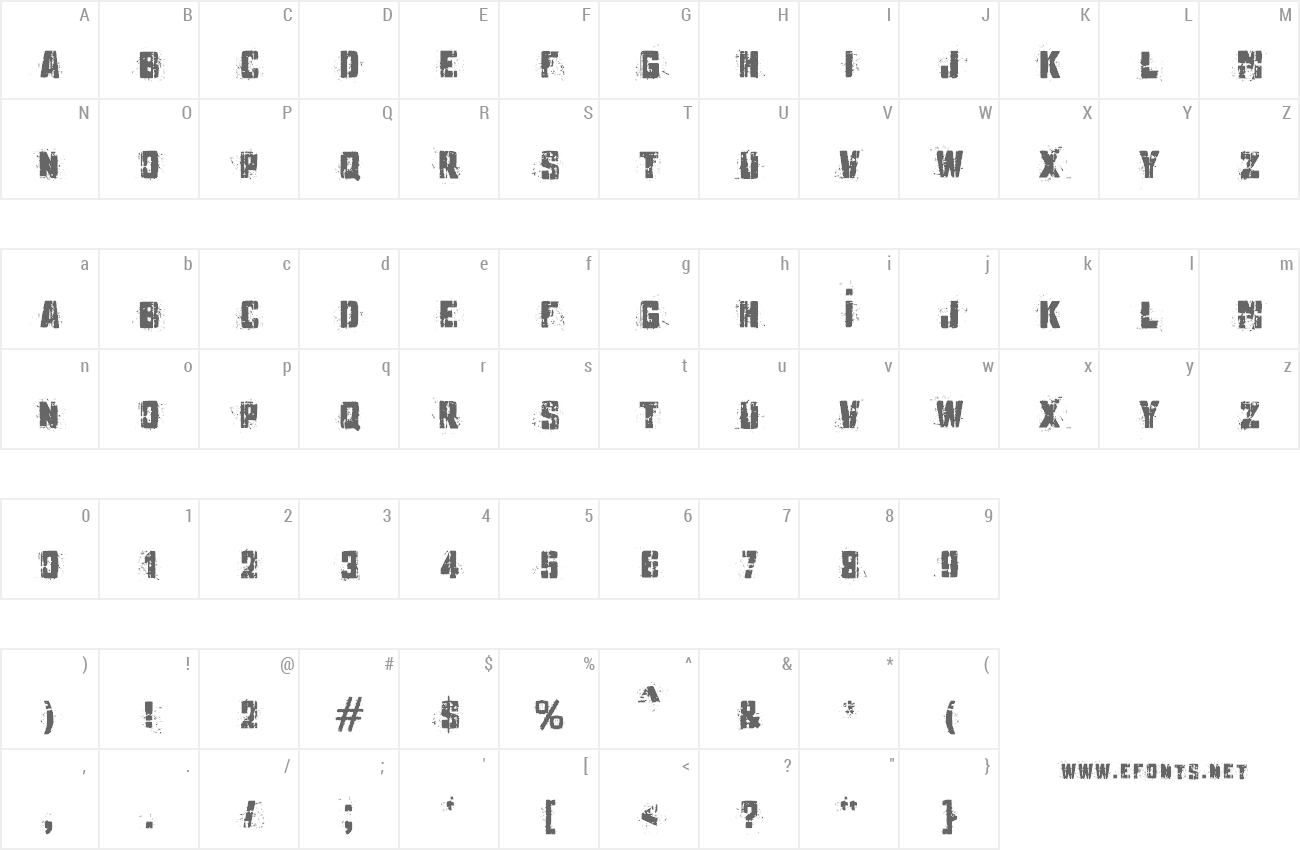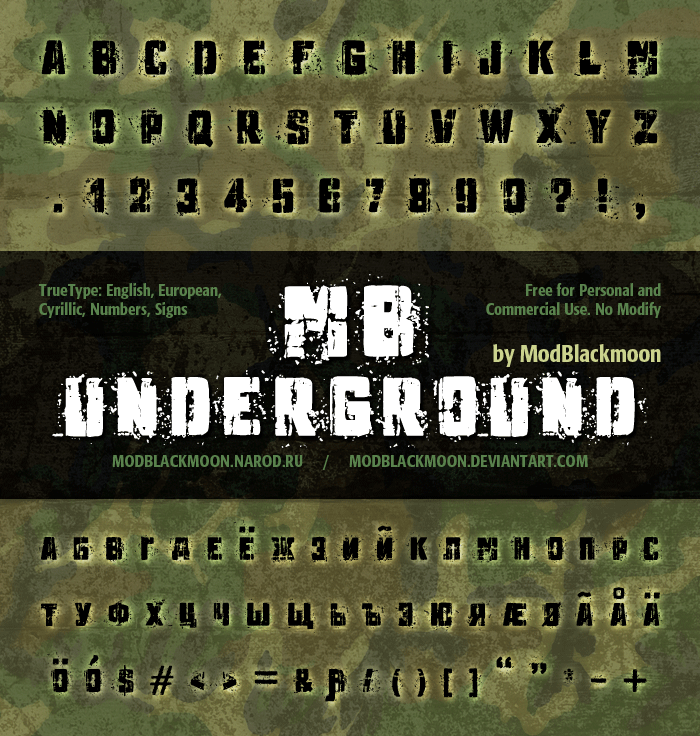
| Font name: | MB Underground |
| Author: | Irina ModBlackmoon |
| Note by Irina ModBlackmoon | |
Pretty common grunge font, nothing really special. Includes english, european, cyrillic letters, signs and numbers. Freeware for any personal and commercial use. Just don't modify the font and don't claim it as your own. |